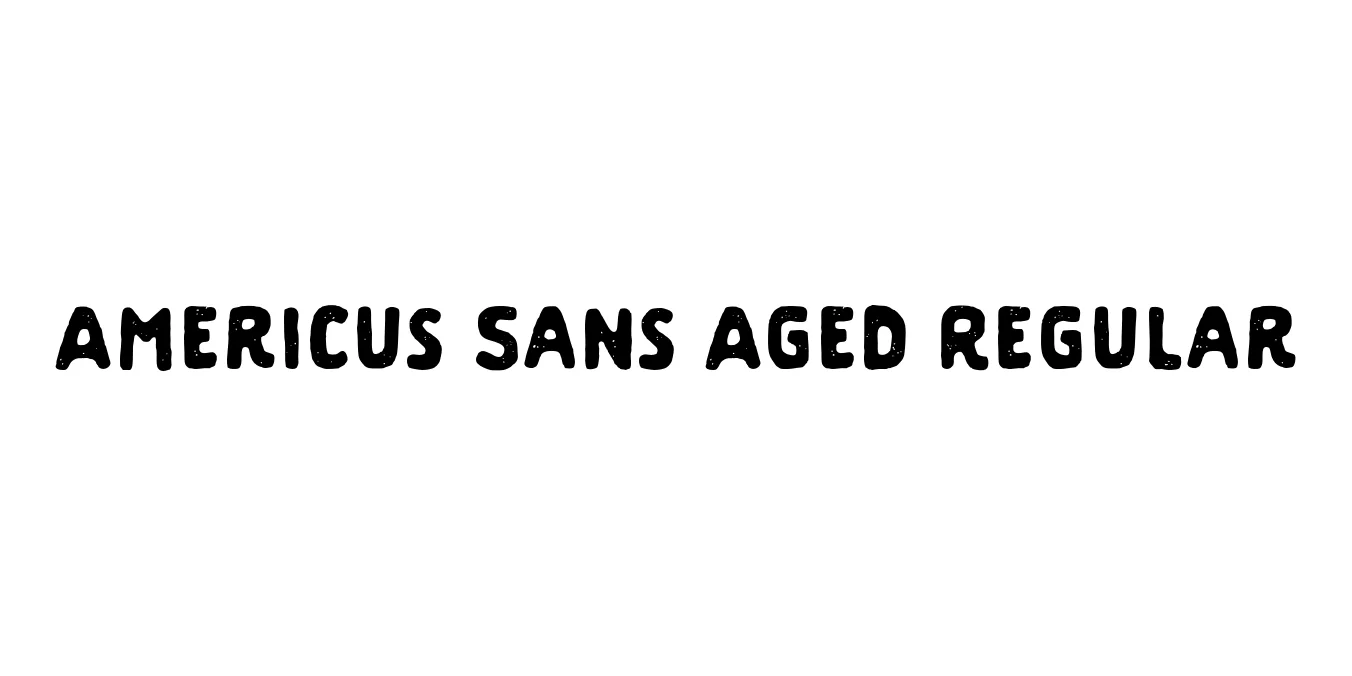
Americus Sans Aged Regular
Designed by Jeremy Vessey (Hustle Supply Co.)
| Font Name | Americus Sans Aged |
| Category | Sans Serif / Vintage / Display |
| Designer | Jeremy Vessey (Hustle Supply Co.) |
Americus Sans Aged Regular is a standout component of the Americus Script & Sans collection, a typeface family deeply inspired by mid-century American signage and vintage hand-lettering. This variant specifically features a weathered, distressed texture that replicates the natural wear and tear of ink on paper or paint on wood. Its clean, upright sans-serif structure provides a solid foundation, while the 'aged' effect adds an immediate sense of history and authenticity to any design project.
Developed by the renowned Hustle Supply Co., this typeface is engineered to provide a rugged yet professional aesthetic without the need for additional filter effects. It is widely utilized in the branding of artisanal goods, outdoor equipment, and craft beverages, where a sense of tradition and durability is paramount. The font maintains high legibility even with its textured finish, making it a reliable choice for both print and digital displays that require a heritage feel.
Americus Sans Aged Regular Best Uses
Perfect for creating authentic, heritage-style brand identities for modern startups.
Ideal for craft food, beverages, and artisanal products requiring a rustic look.
Works exceptionally well for t-shirt graphics and vintage-inspired sportswear labels.
Great for creating eye-catching, weather-beaten quote graphics and promotional posters.